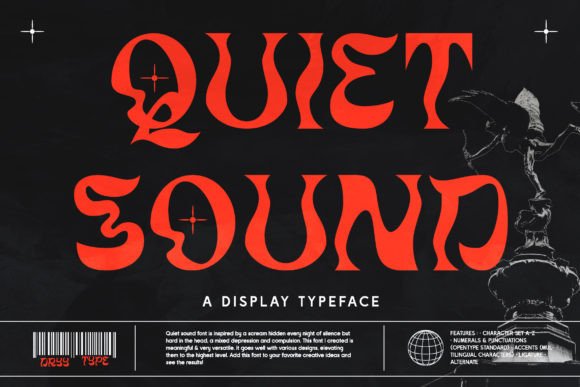
Are you looking for a font that will make a bold statement? Look no further than Quiet Sounds Font by Dryy.type. This blackletter font is anything but ordinary. Its bold letterforms and striking angles make it truly impactful and unique.
Quiet Sounds Font is perfect for those looking to add a touch of boldness and uniqueness to their designs. Whether you're creating headlines, posters, or anything that needs to stand out, this font is sure to make an impression.
But what sets Quiet Sounds Font apart from other blackletter fonts on the market? For one, it is PUA encoded, meaning that you can effortlessly access all glyphs and swashes. This makes it easier than ever to add those finishing touches to your designs.
But more than that, Quiet Sounds Font has a distinct personality that sets it apart from the rest. Its striking angles and bold letterforms make it a font that demands attention. It's perfect for those looking to create designs that are truly one-of-a-kind.